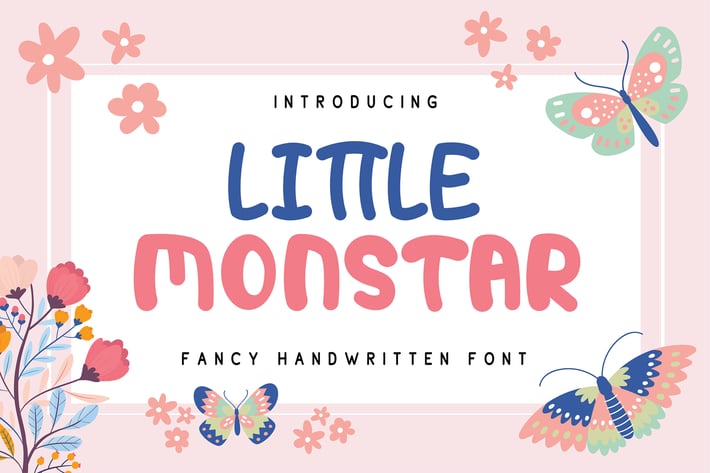
Little Monstar | Fancy Handwritien Font
Little Monstar | Fancy Handwritien Font with a calligraphy style, So beautiful on invitation like greeting cards, branding materials, business cards, quotes, posters, and more!